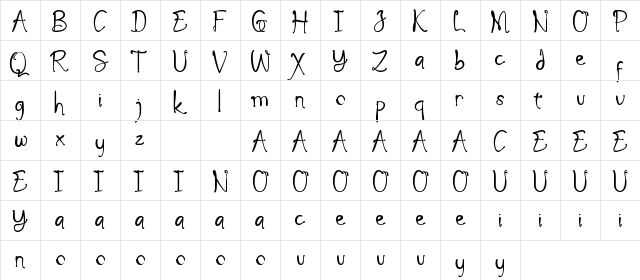
Quaker Zinchers Regular
| Designer | Zkhai Creative |
Design Context for Quaker Zinchers Typeface
Quaker Zinchers is a composed and adaptable typeface that performs quietly and consistently across a wide range of design contexts.